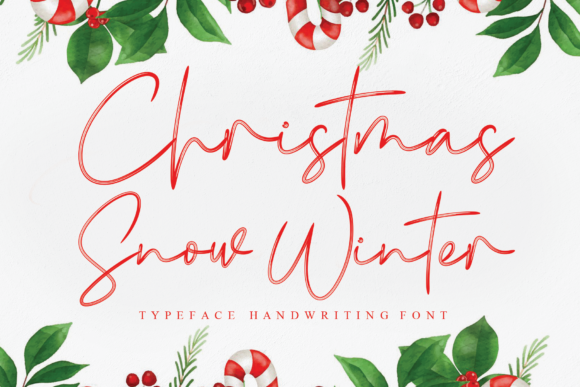
Unleash the charm of the winter wonderland with Christmas Snow Winter Font, an enchanting script that embodies the magic of the festive season. Flowing like snowflakes, this elegant and fluid font adds a touch of whimsical charm to your creative projects. Let your imagination dance across the pages as you craft captivating designs that evoke the warmth and joy of Christmas.
Immerse yourself in the creative possibilities that await with Christmas Snow Winter. Perfect for logos, branding, invitations, and social media posts, this font's graceful strokes bring an air of sophistication to your work. Imagine the stunning wedding invitations adorned with this elegant script, or the captivating social media posts that draw your audience in with their enchanting allure.
With Christmas Snow Winter, your designs will radiate with the spirit of the holidays, spreading joy and warmth wherever they go. Its enchanting curves and playful flourishes add a touch of whimsy to any project, making it the perfect choice for those who seek to create truly unique and captivating designs.